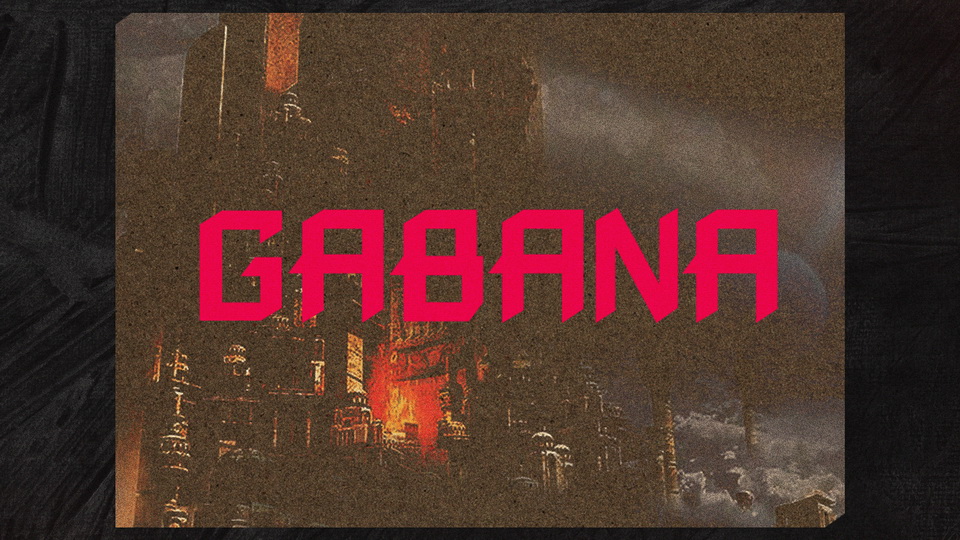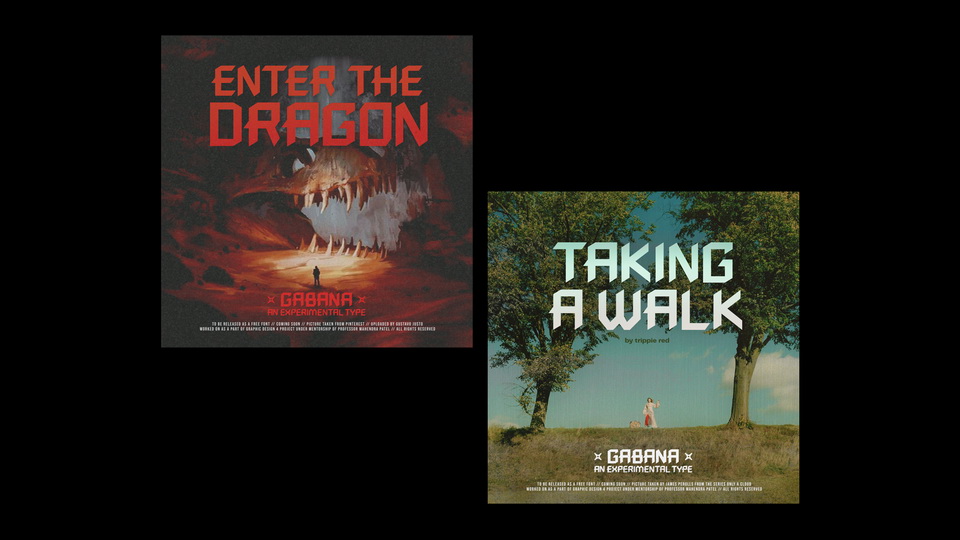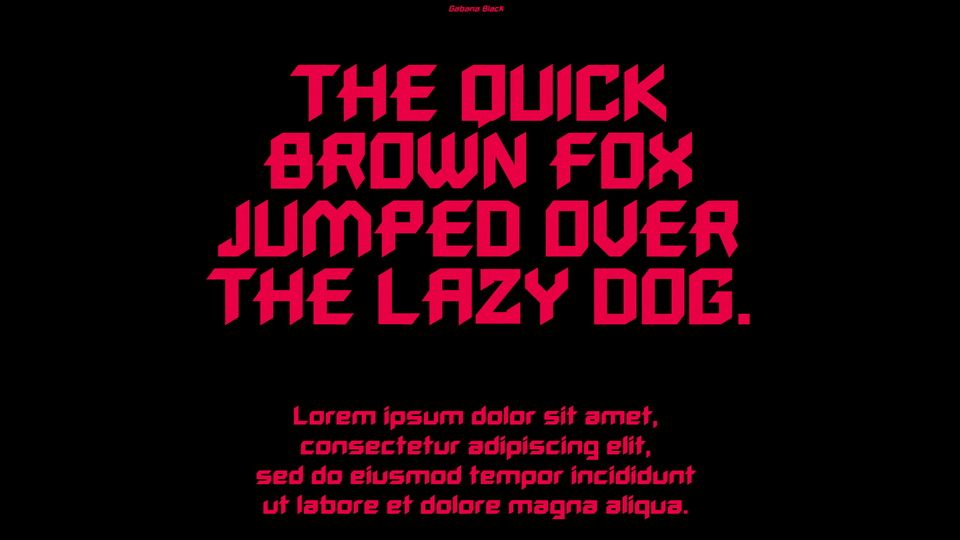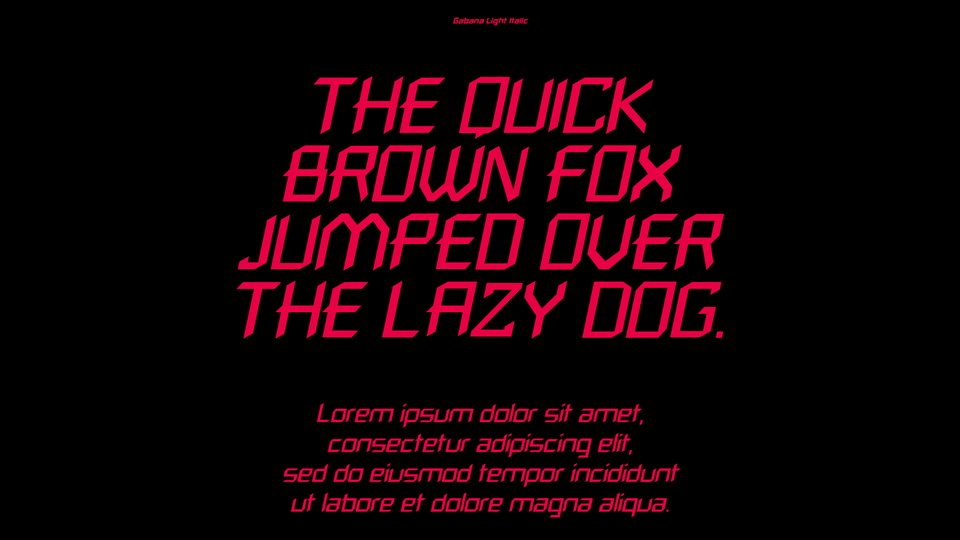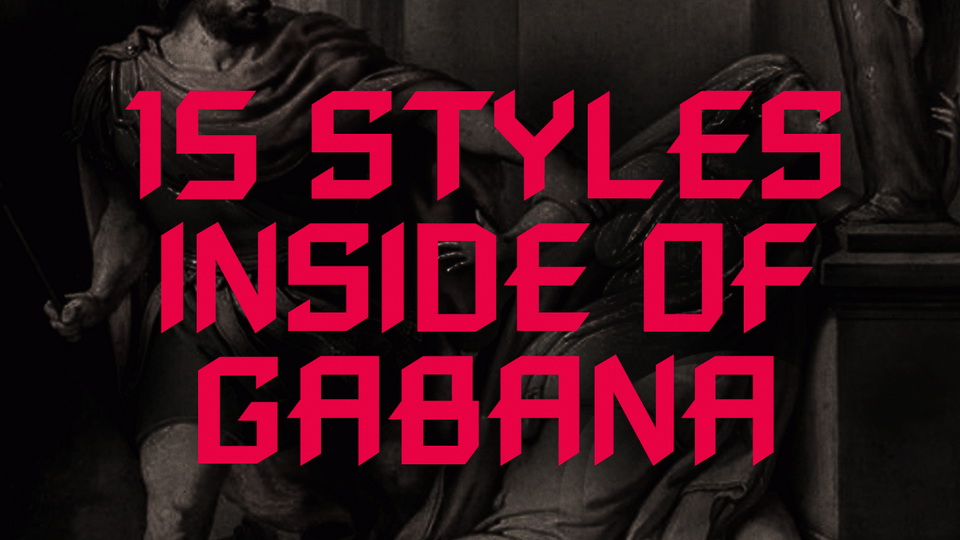
Gabana is primarily a display typeface referencing the typography from early 80s; characteristic of thick bold letterforms and clean cuts. The word Gabana (of African origin) means ‘a child with courage and determination.’